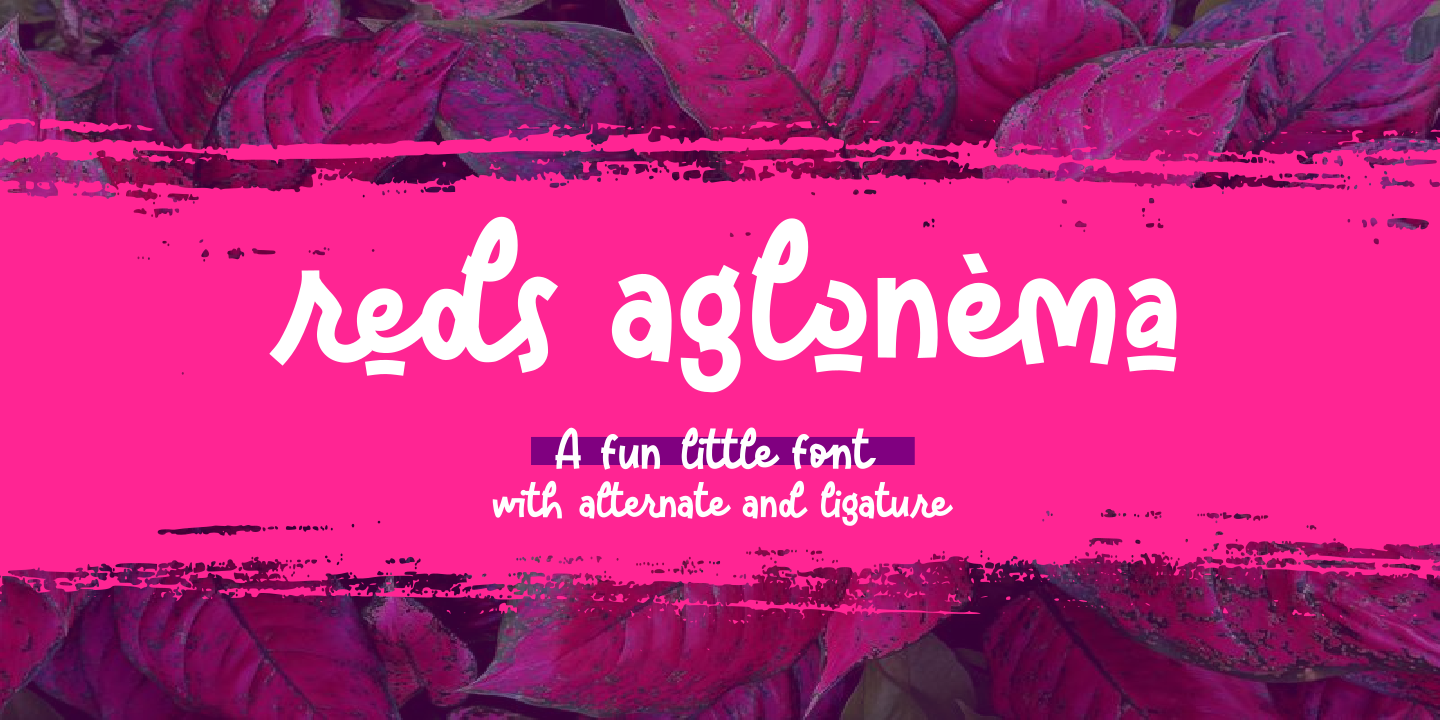
Reds Aglonema Font is perfect for tropical plant nurseries, botanical garden signage, indoor plant shop branding, houseplant care guides, gardening magazine layouts, exotic plant catalogs, greenhouse marketing materials, plant collector communications, horticultural event promotions, and nature-inspired lifestyle brands. This lush botanical typeface brings tropical elegance and exotic plant sophistication to specialized horticultural design applications.
What makes Reds Aglonema Font so exciting is its extraordinary ability to capture the vibrant beauty and exotic appeal of tropical foliage plants through letterforms that seem to flourish with the same rich coloration and elegant patterns found in prized Aglaonema varieties. The font features organically flowing characters with sophisticated curves and natural variations that mirror the distinctive leaf patterns and graceful growth habits of these beloved tropical houseplants. Its distinctive characteristics include rich stroke variations, exotic proportions, and harmonious spacing that reflect the balanced beauty and decorative appeal that make Aglaonema plants treasured additions to interior landscapes. The font's authentic connection to tropical horticulture and proven appeal among plant enthusiasts make Reds Aglonema Font perfect for brands seeking to communicate botanical expertise, exotic beauty, and the sophisticated world of tropical plant cultivation.
The Reds Aglonema Font family includes multiple tropical variations: Light, Regular, Medium, and Bold versions with botanical character sets. The comprehensive character collection encompasses complete Latin alphabet support with plant-inspired alternates, organic numerals, botanical punctuation marks, tropical symbols, and exotic decorative elements that enhance horticultural messaging. Professional features include contextual alternates that create natural variety, flowing spacing that mirrors tropical growth patterns, exotic character construction that maintains botanical authenticity, and tropical details that support plant communications and horticultural marketing strategies for indoor gardening applications.
Whether you're creating tropical plant materials, horticultural publications, or botanical communications that celebrate the beauty of exotic houseplants and indoor gardening, Reds Aglonema Font Free Download provides the luxuriously tropical typography that connects with audiences seeking sophisticated plant experiences and exotic botanical lifestyle solutions. Its powerful tropical character makes it perfect for specialty nurseries, plant collectors, and horticultural businesses where authentic expertise in exotic plants is essential for credibility and customer engagement, while its exotic appeal ensures memorable brand recognition that resonates with houseplant enthusiasts and tropical plant lovers. The font's combination of botanical authenticity and contemporary functionality makes it invaluable for designers working with specialty plant brands, horticultural organizations, and any project seeking to communicate tropical sophistication, botanical knowledge, and the exotic beauty that defines premium houseplant cultivation and the thriving world of tropical plant collecting and indoor jungle creation.